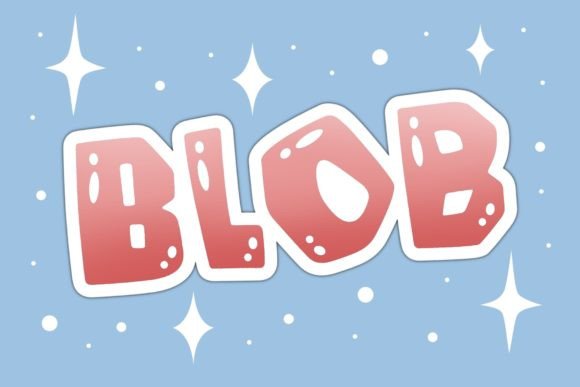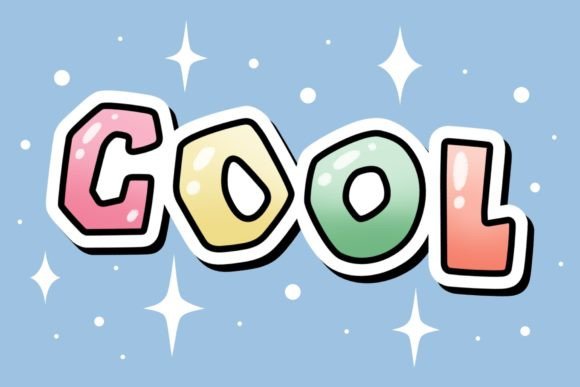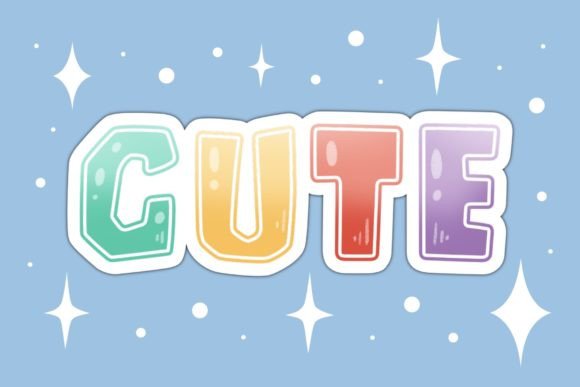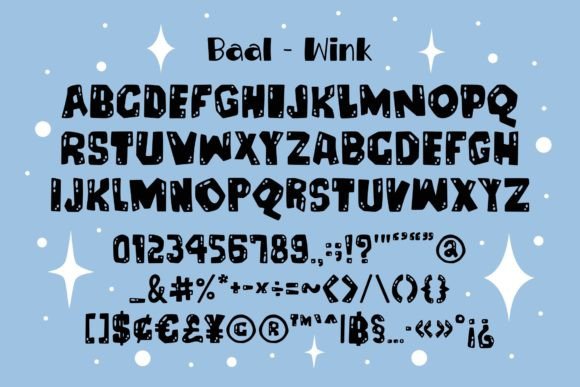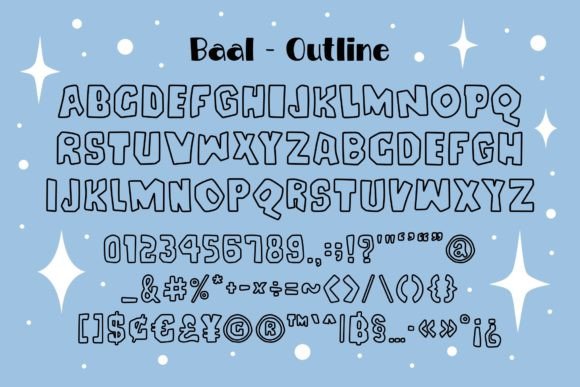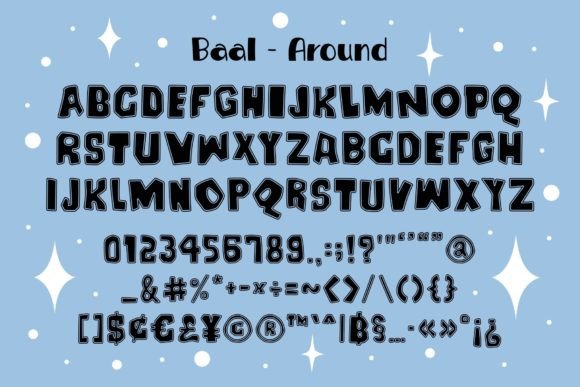
Baal Font: A Playful 3-Style Family Font for Creative Expression
In the world of typography, fonts play a crucial role in conveying messages, evoking emotions, and creating a lasting impression. For designers, crafters, and creative enthusiasts, finding the right font can be a daunting task. However, if you’re looking for a font that can add a touch of playfulness and uniqueness to your projects, look no further than the Baal Font. This article will delve into the world of Baal Font, exploring its features, benefits, and uses, and why it’s an excellent choice for creating a distinctive and memorable visual impact.
What is Baal Font?
Baal is a playful 3-style family font that is designed to grab attention in various mediums, including print, packaging, and social media. Its unique design makes it perfect for creating a distinctive and memorable visual impact. The font comes in three styles, offering versatility and flexibility for designers and crafters to experiment with different looks and feels.
Key Features of Baal Font
- Playful Design: Baal Font boasts a playful design that is sure to capture the attention of your audience. Its unique and quirky style makes it perfect for projects that require a touch of whimsy and fun.
- 3-Style Family: The font comes in three styles, allowing designers and crafters to choose the one that best suits their project’s tone and mood.
- Versatility: Baal Font is versatile and can be used in various mediums, including print, packaging, and social media.
- Distinctive and Memorable: The font’s unique design makes it perfect for creating a distinctive and memorable visual impact, setting it apart from other fonts.
Benefits of Using Baal Font
Using Baal Font offers several benefits for designers, crafters, and creative enthusiasts. Some of the advantages of using this font include:
- Enhanced Creativity: Baal Font’s playful design and versatility can enhance your creativity, allowing you to experiment with different styles and looks.
- Increased Engagement: The font’s unique design can help increase engagement with your audience, making your projects more memorable and impactful.
- Time-Saving: With Baal Font’s three styles, designers and crafters can save time and effort, as they don’t need to create multiple font styles from scratch.
- Professional Look: The font’s high-quality design gives projects a professional look, making it perfect for commercial and personal use.
Uses of Baal Font
Baal Font is a versatile font that can be used in various projects, including:
- Print Design: The font is perfect for print design, including brochures, posters, flyers, and business cards.
- Packaging Design: Baal Font’s playful design makes it ideal for packaging design, adding a touch of whimsy and fun to product packaging.
- Social Media Graphics: The font is suitable for social media graphics, including Facebook posts, Instagram stories, and Twitter headers.
- Crafting Projects: Baal Font can be used in various crafting projects, such as card making, scrapbooking, and DIY projects.
Tips for Using Baal Font
To get the most out of Baal Font, here are some tips for using this font:
- Experiment with Styles: Try out the font’s three styles to find the one that best suits your project’s tone and mood.
- Pair with Other Fonts: Baal Font can be paired with other fonts to create a unique and visually appealing design.
- Use in Combination with Images: The font can be used in combination with images to add a touch of whimsy and fun to your projects.
- Adjust Font Size and Color: Experiment with different font sizes and colors to create a visually appealing design.
In conclusion, Baal Font is a playful 3-style family font that is perfect for designers, crafters, and creative enthusiasts looking to add a touch of whimsy and fun to their projects. Its unique design, versatility, and distinctive style make it an excellent choice for creating a memorable visual impact. With its numerous benefits, uses, and tips for use, Baal Font is a must-have font for anyone looking to elevate their creative projects.